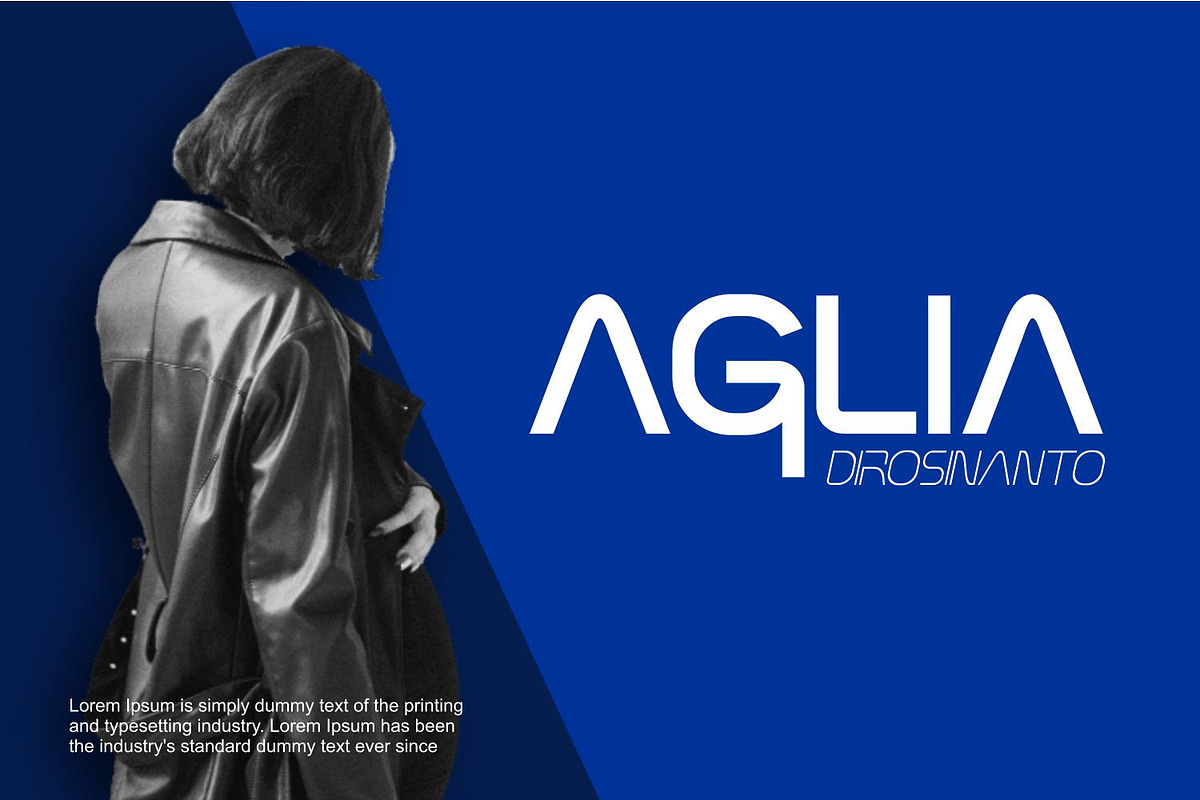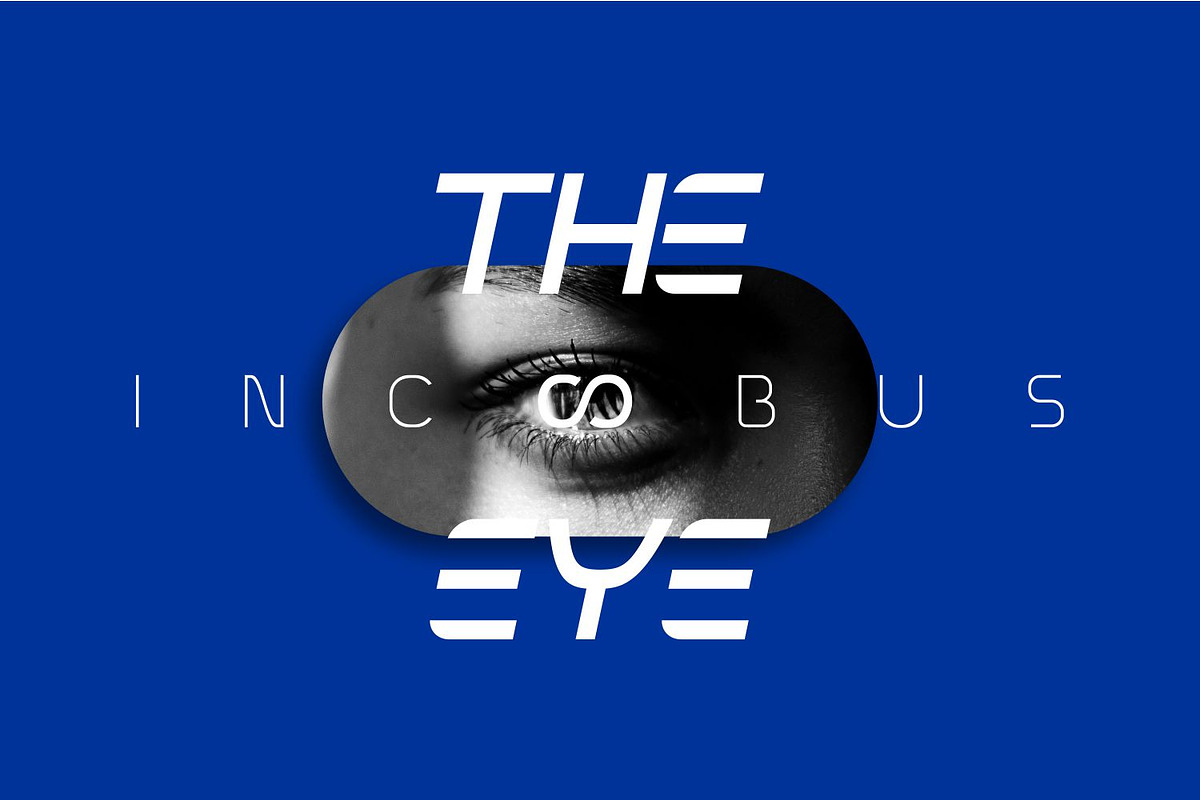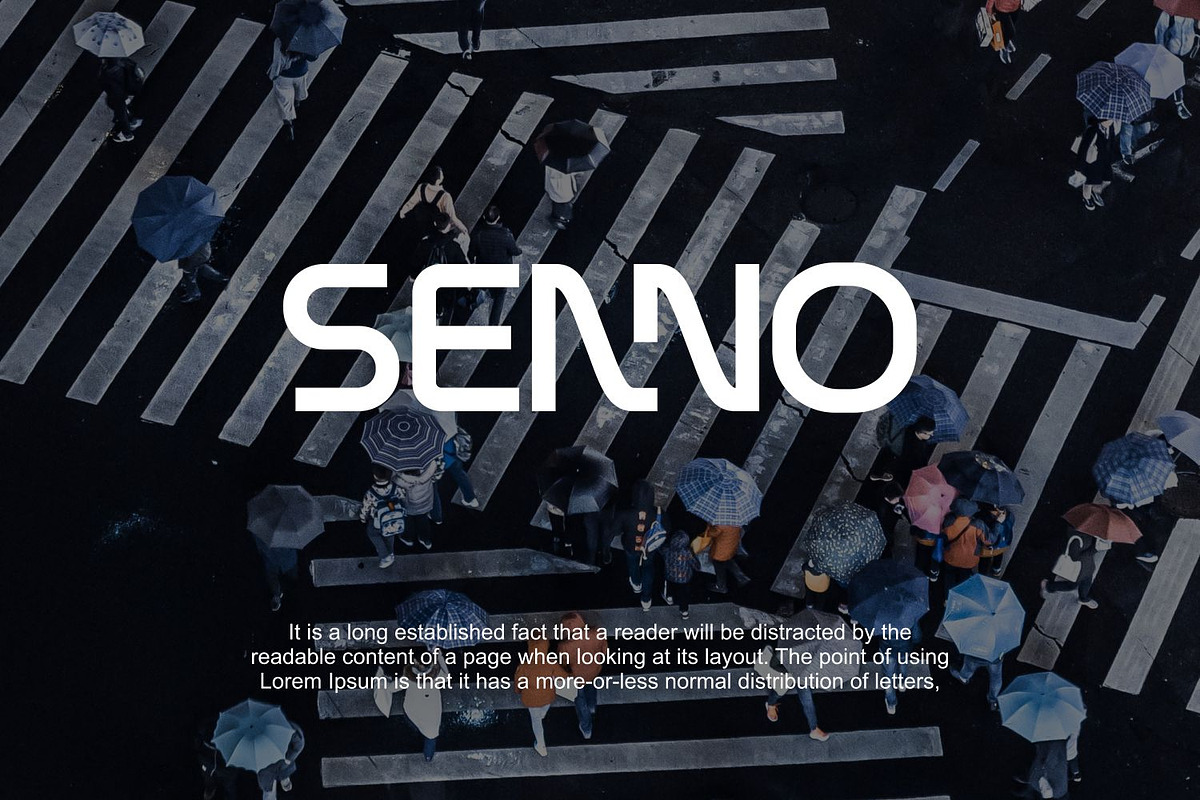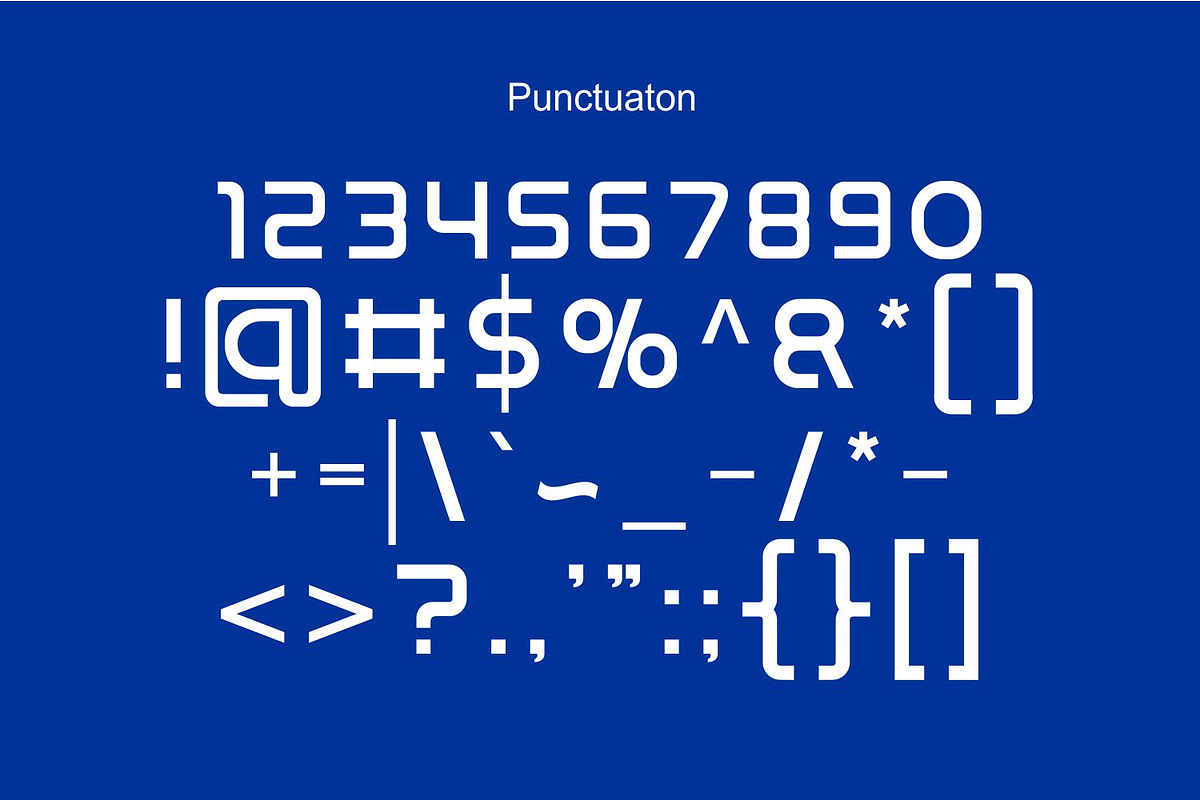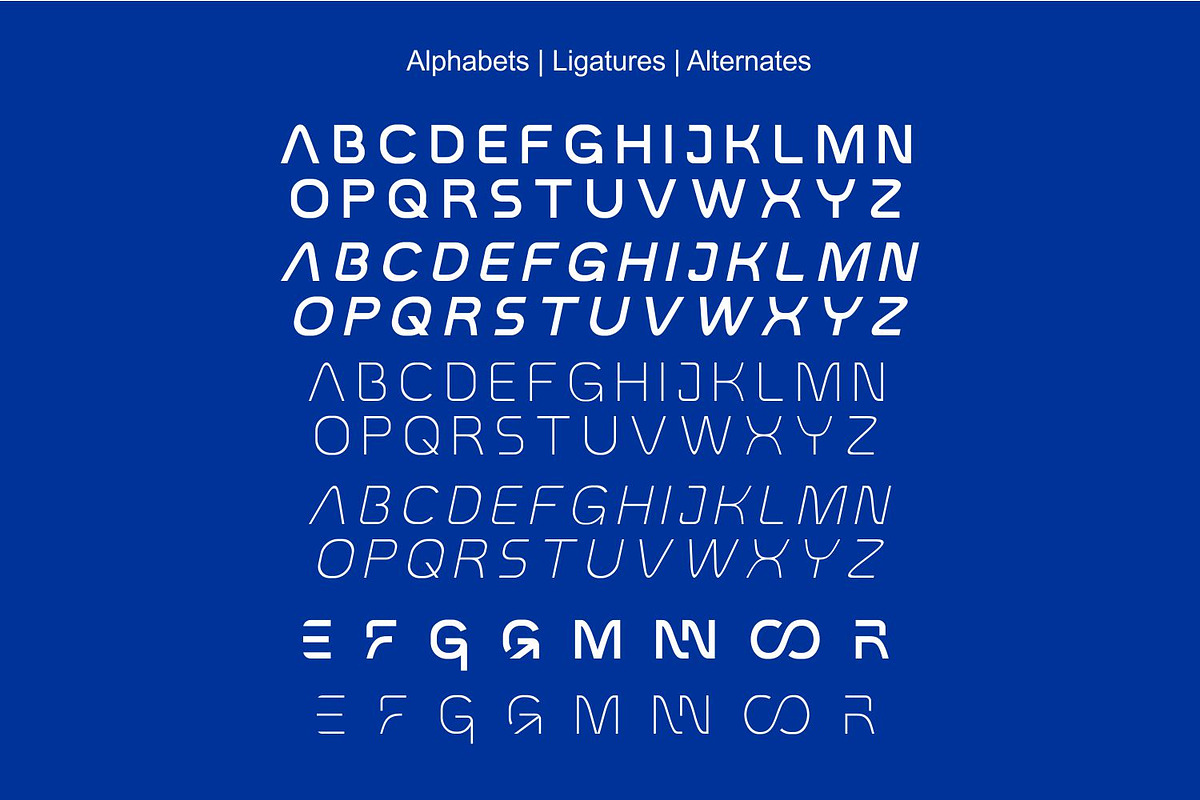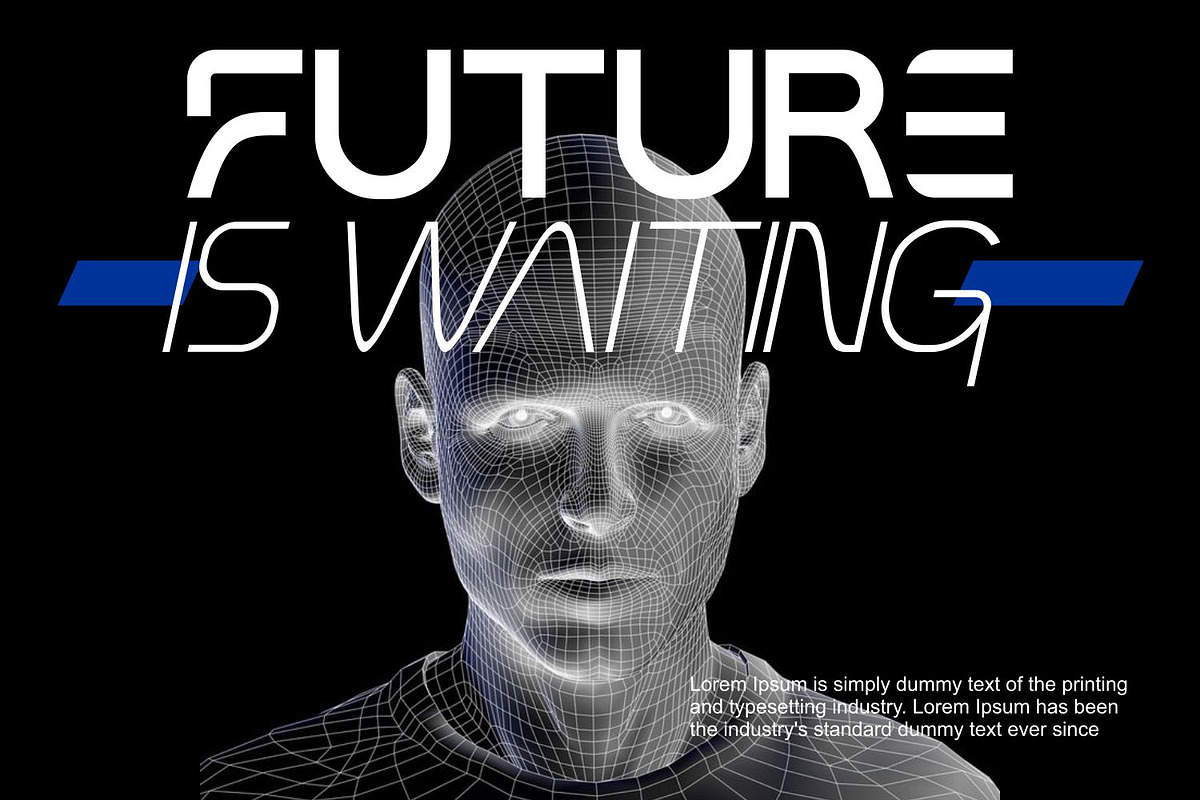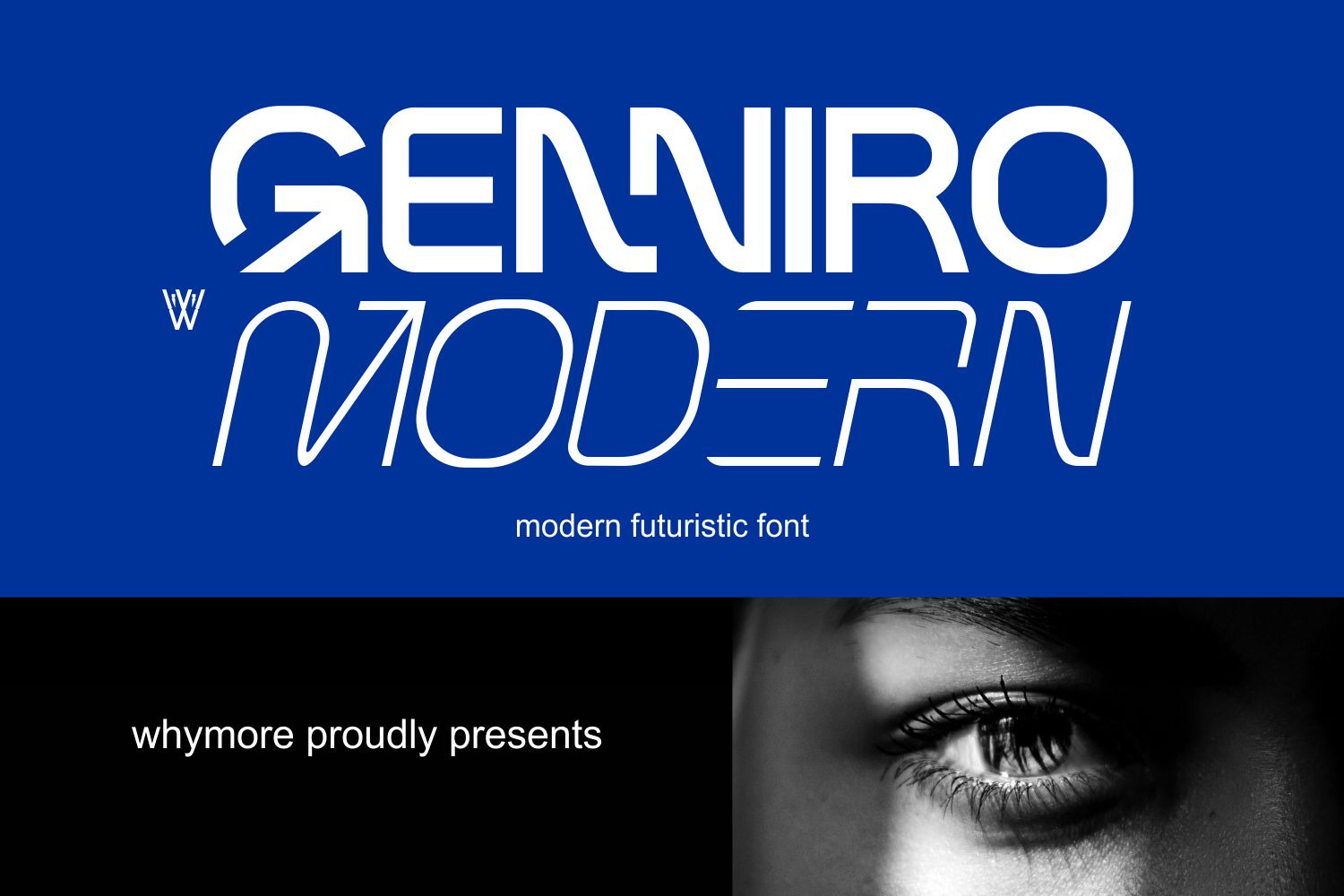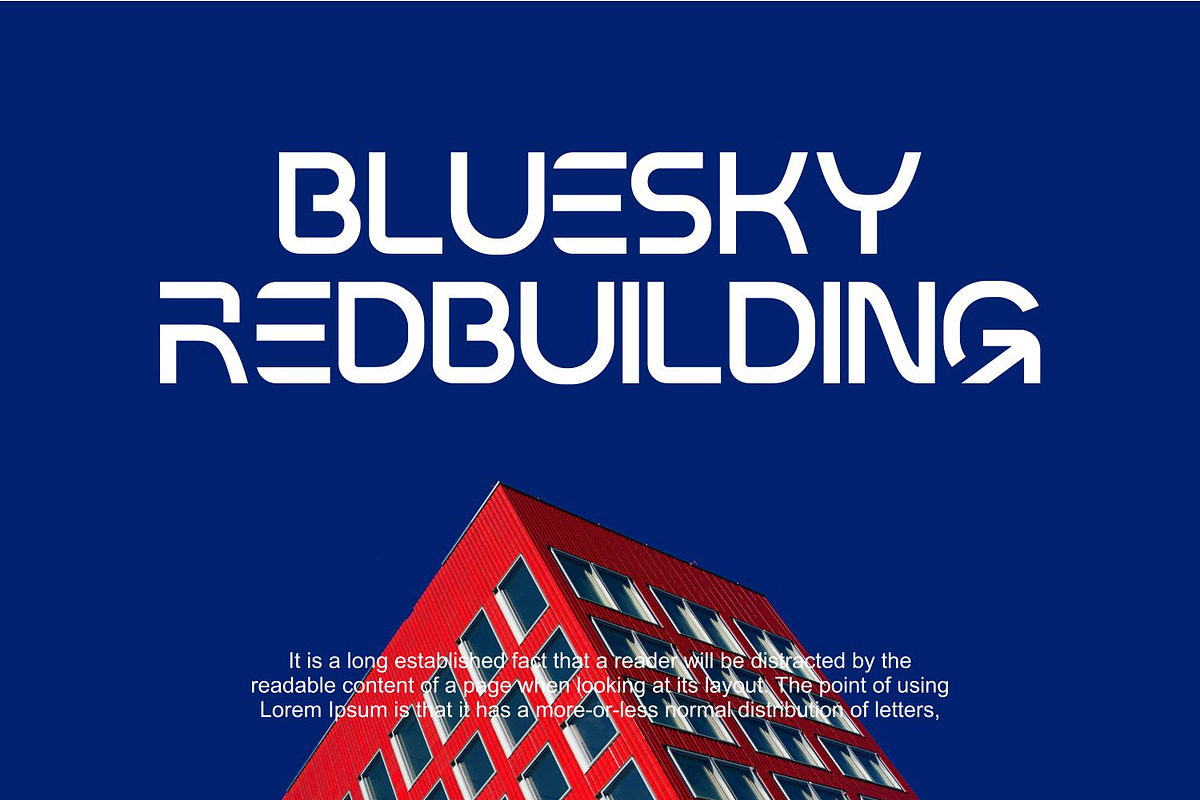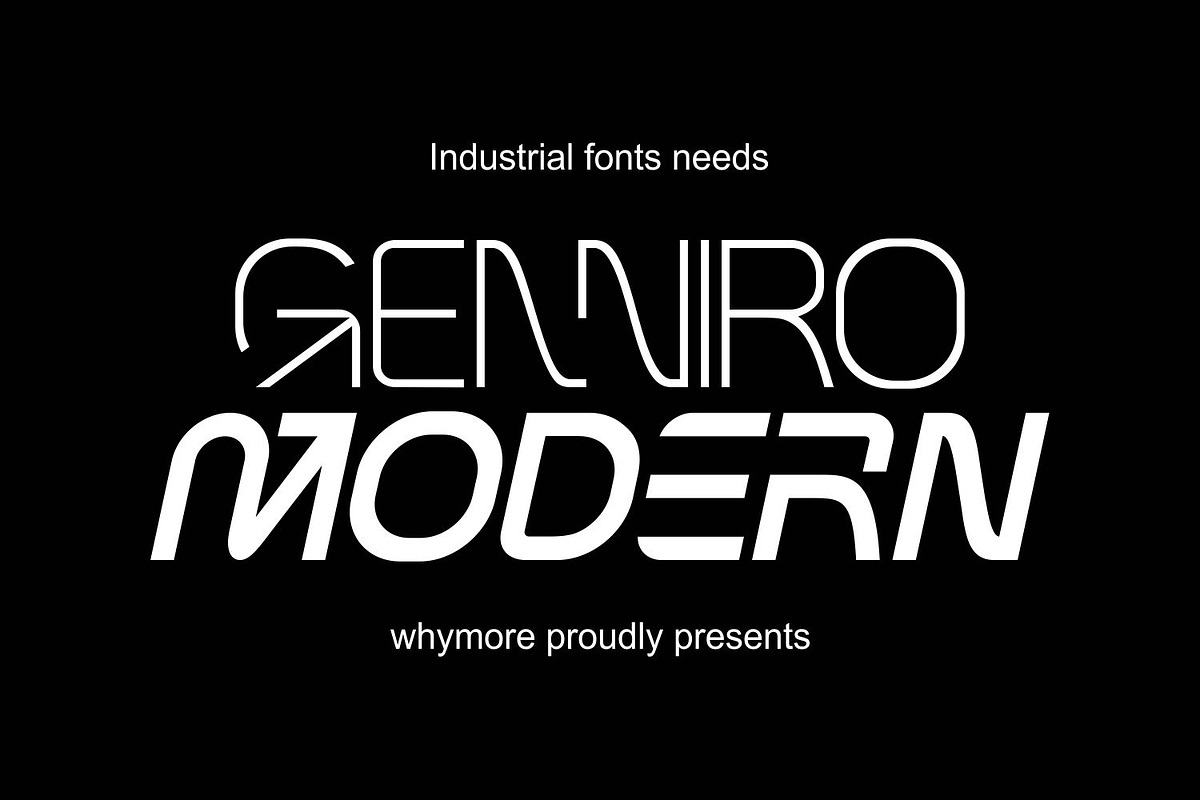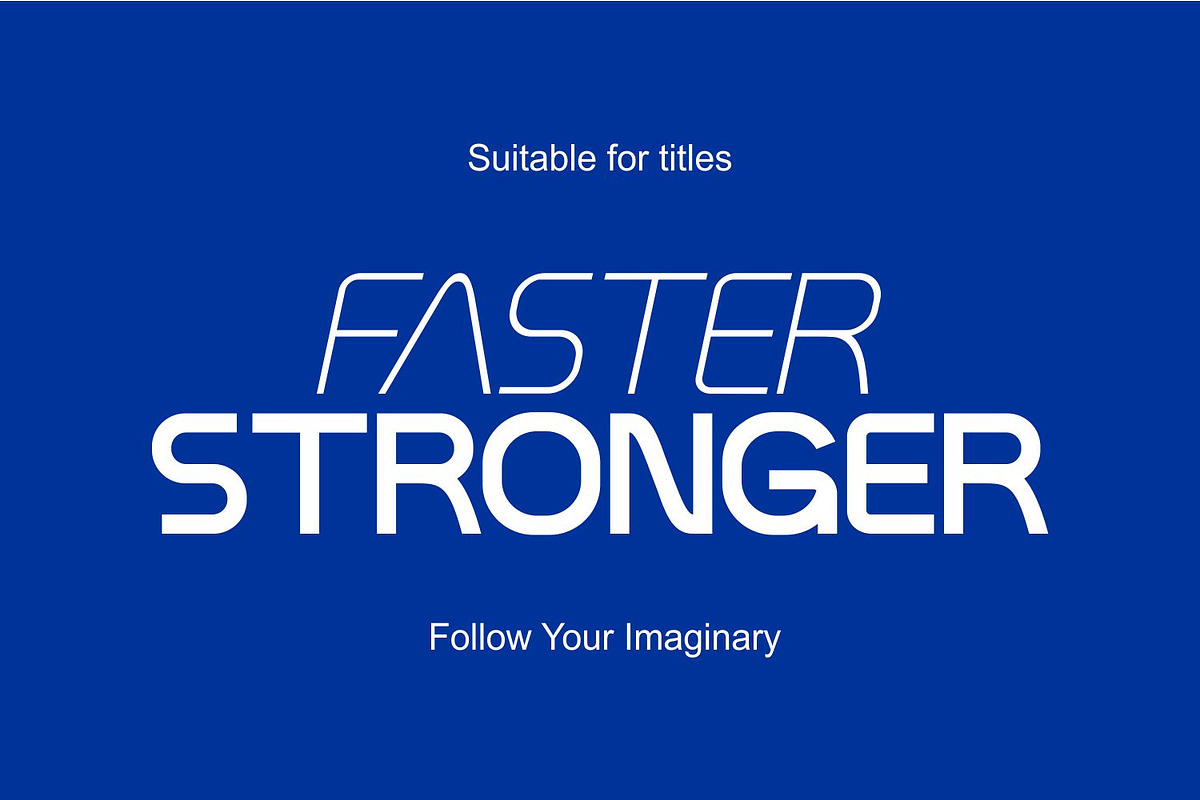
Genniro | Futuristic Sans Font
The Genniro Font is a captivating futuristic typeface that pushes the boundaries of design with its innovative and avant-garde style. Inspired by advanced technology and forward-thinking design, this font features sleek lines, sharp angles, and geometric shapes that evoke a sense of modernity and progress. Whether you’re designing for sci-fi themes, tech startups, or futuristic branding, the Genniro Font adds a touch of contemporary flair that captivates the viewer. Its minimalist design and versatility make it perfect for a wide range of digital and print applications. Embrace the future of design with the Genniro Font.